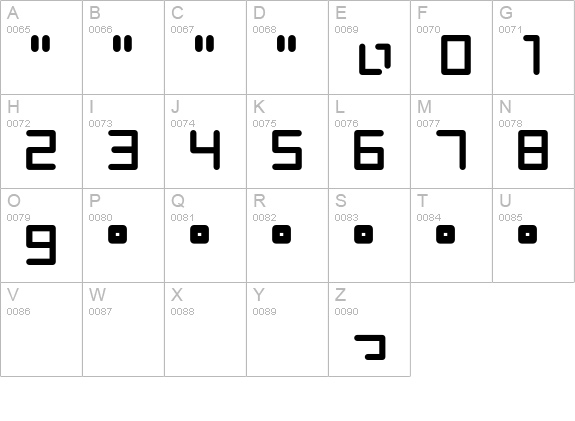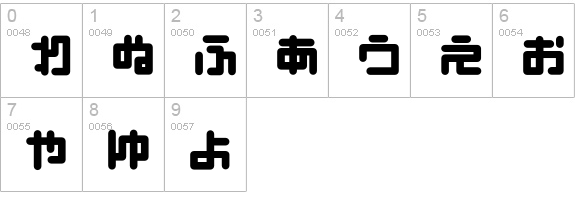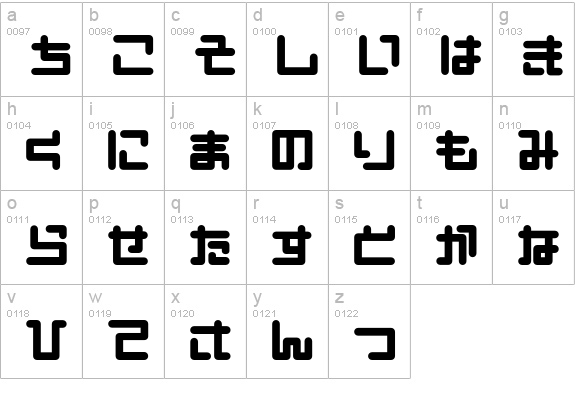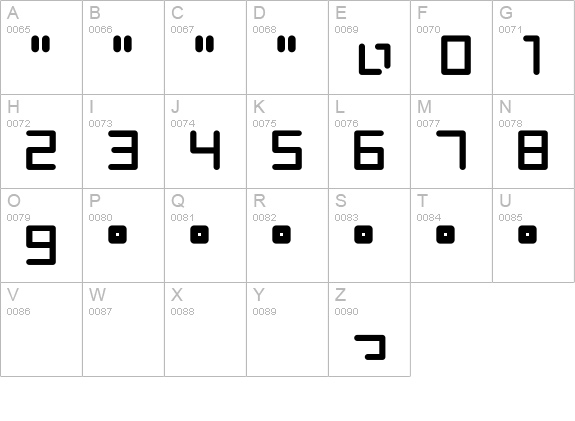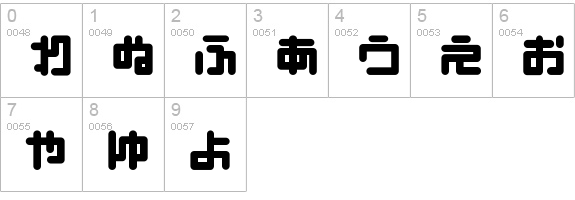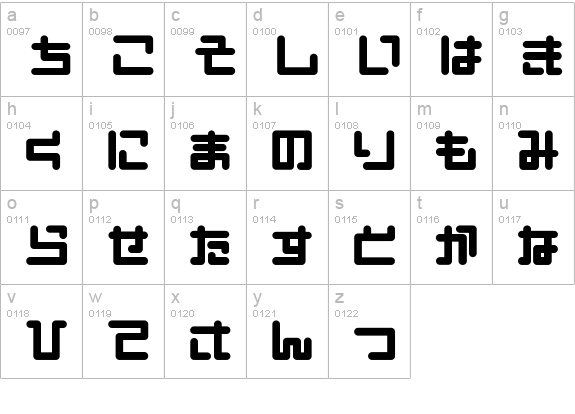
Pinponpan Font Details
Pinponpan font is a visually striking and versatile typeface that is sure to catch the eye of any designer or typographer. With its bold and playful letterforms, Pinponpan adds a touch of excitement and creativity to any project. Whether you're working on a poster, a logo, or a website, this font is sure to make a bold statement. What sets Pinponpan font apart is not only its unique design, but also the fact that it is free to download. Yes, you read that right - Pinponpan font is freely available to download at FontsMarket.com. This means that you can add this stunning font to your collection without spending a dime. But don't let its free price tag fool you - Pinponpan font is of the highest quality. It has been carefully crafted by a team of talented designers, ensuring that each letter is perfectly balanced and visually appealing. The attention to detail is evident in every curve and stroke, making this font a true work of art. The versatility of Pinponpan font is another reason why it stands out. With its bold and playful style, it can be used in a variety of contexts. Whether you want to create a bold headline, a catchy slogan, or a fun and vibrant logo, Pinponpan font has got you covered. So why wait? Add some excitement and creativity to your next design project with Pinponpan font. Download it for free at FontsMarket.com and unleash your creativity today.